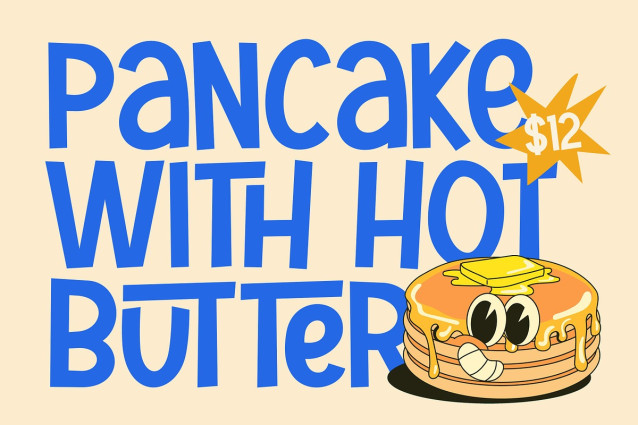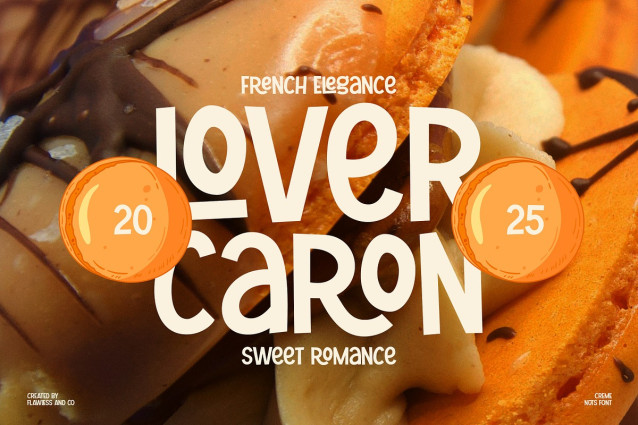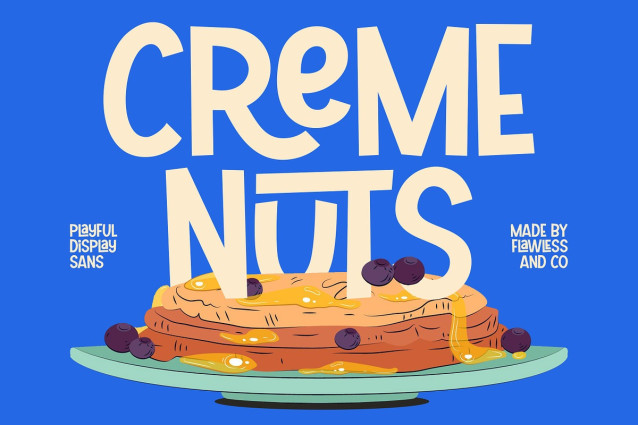
Creme Nuts Font
Creme Nuts Font is a playful display sans serif font designed to bring fun, warmth, and personality into your designs. Featuring bold shapes, rounded forms, and cheerful character, this font delivers a friendly and eye-catching look that instantly grabs attention.